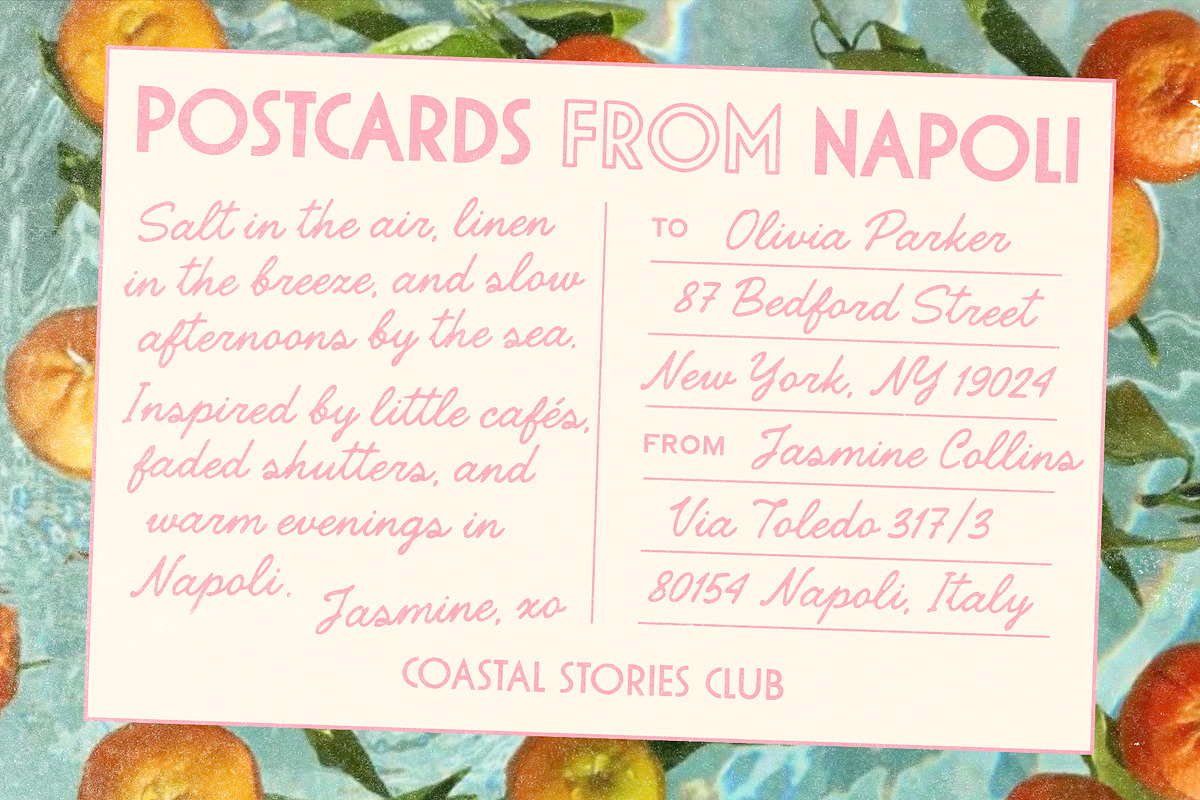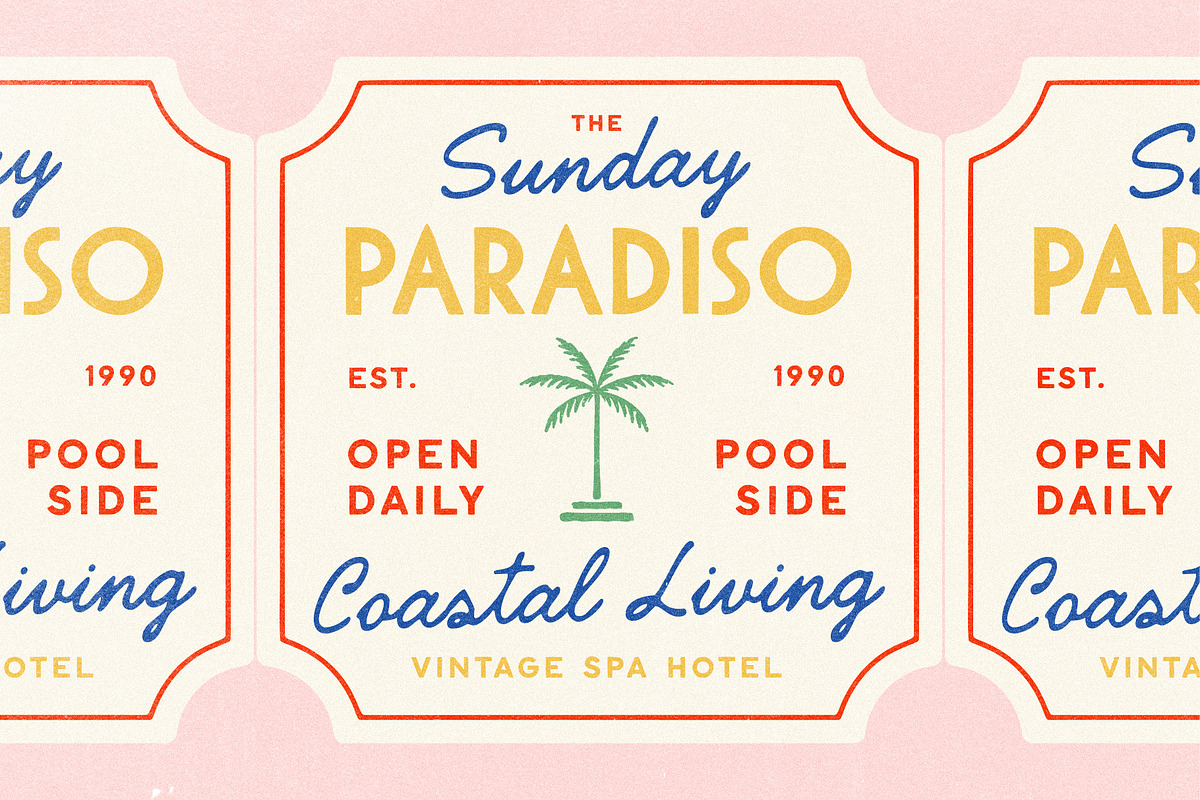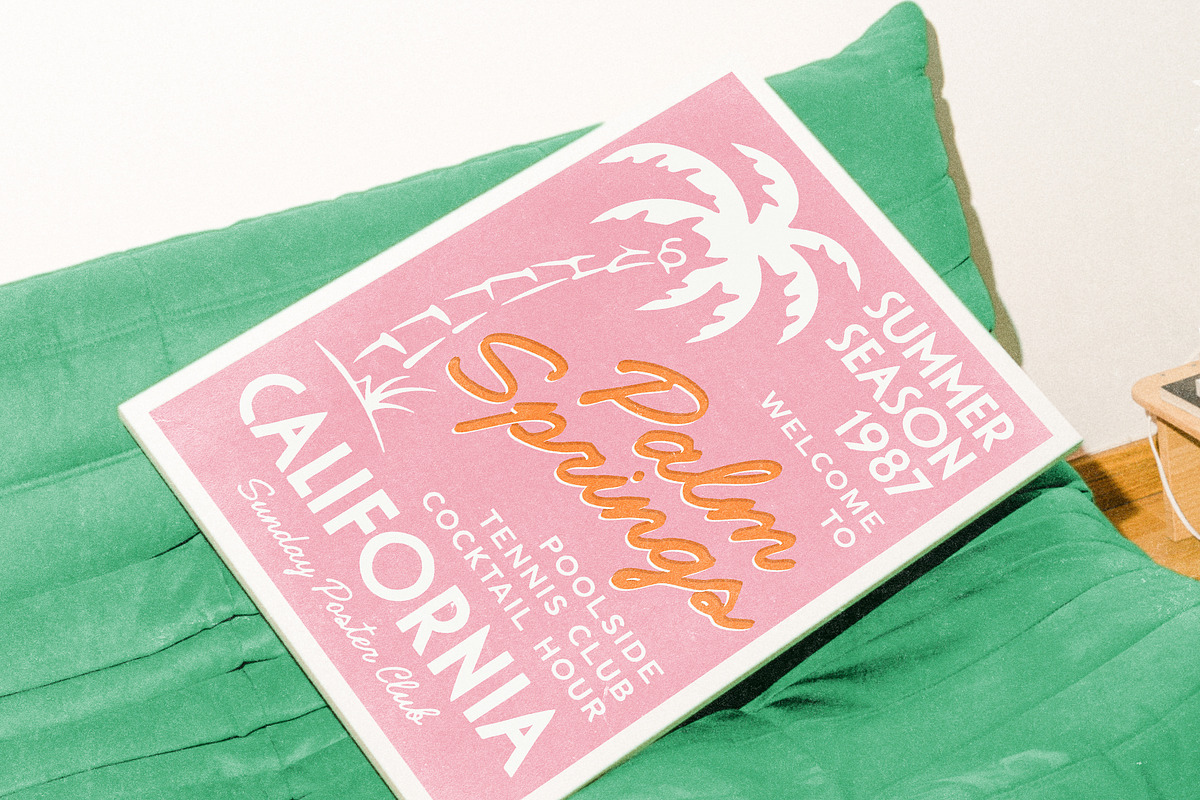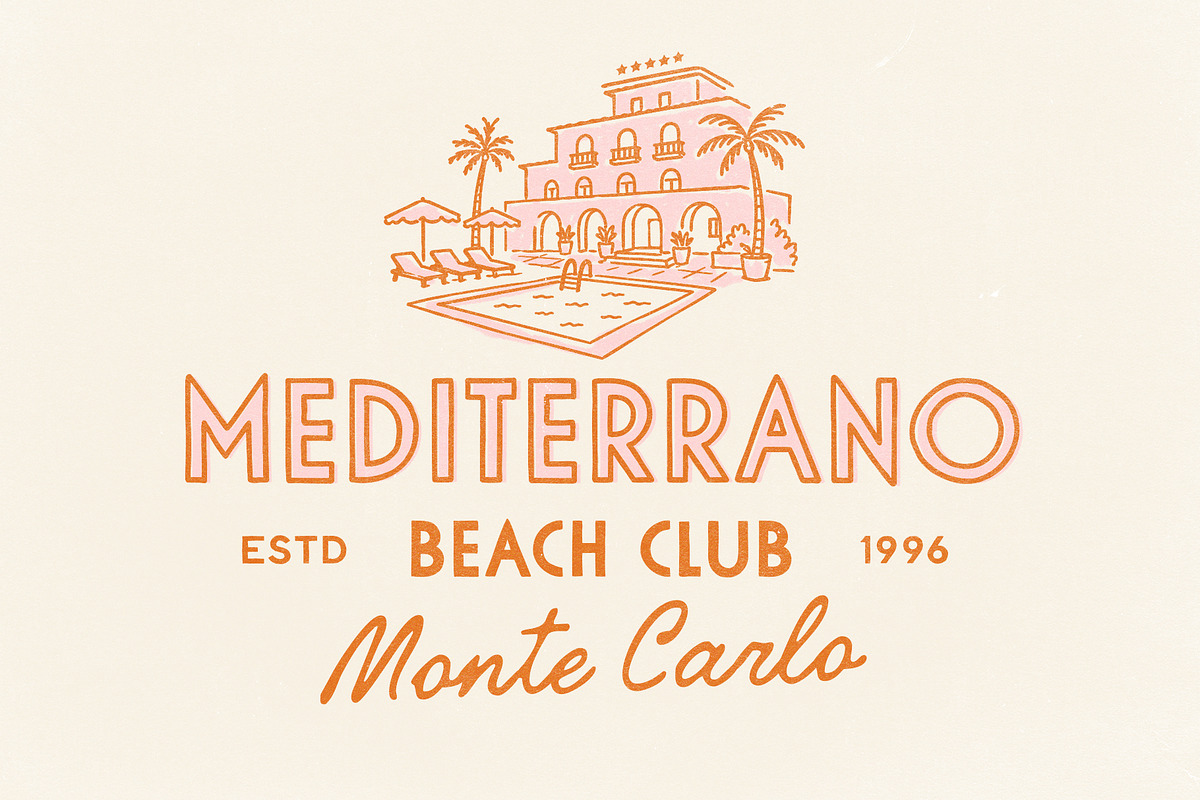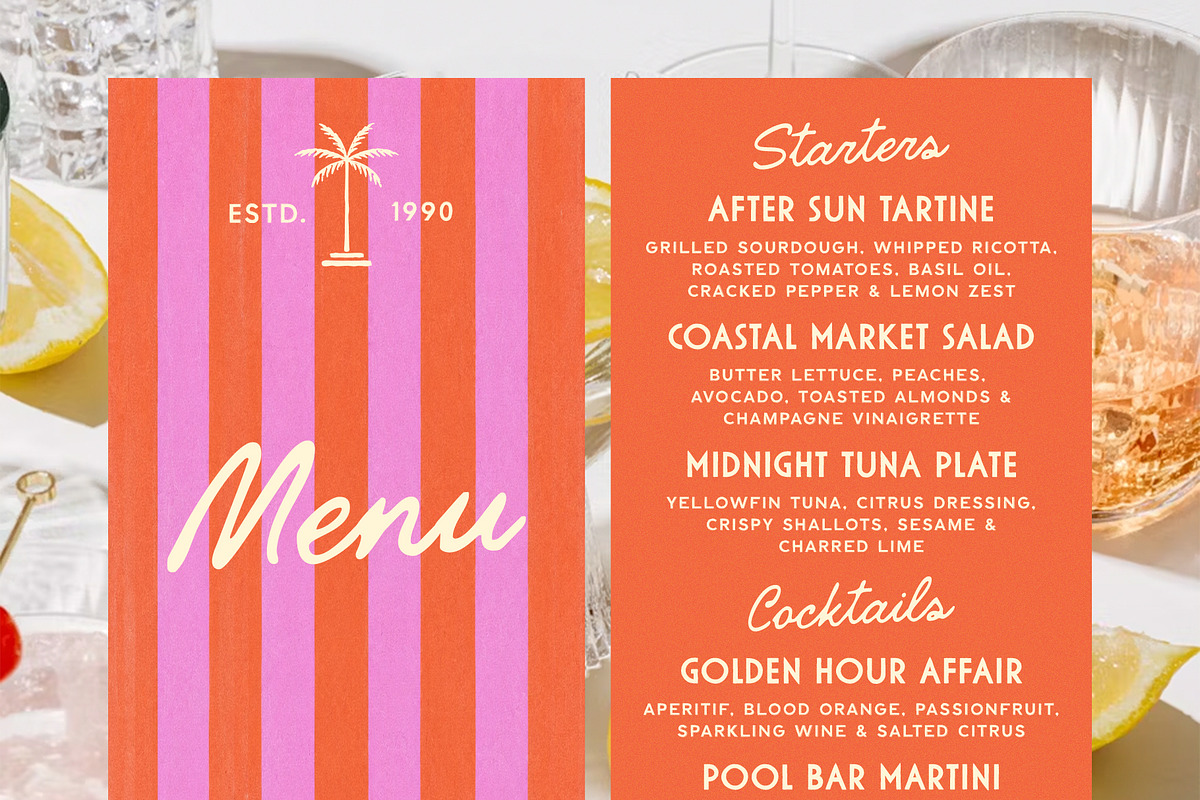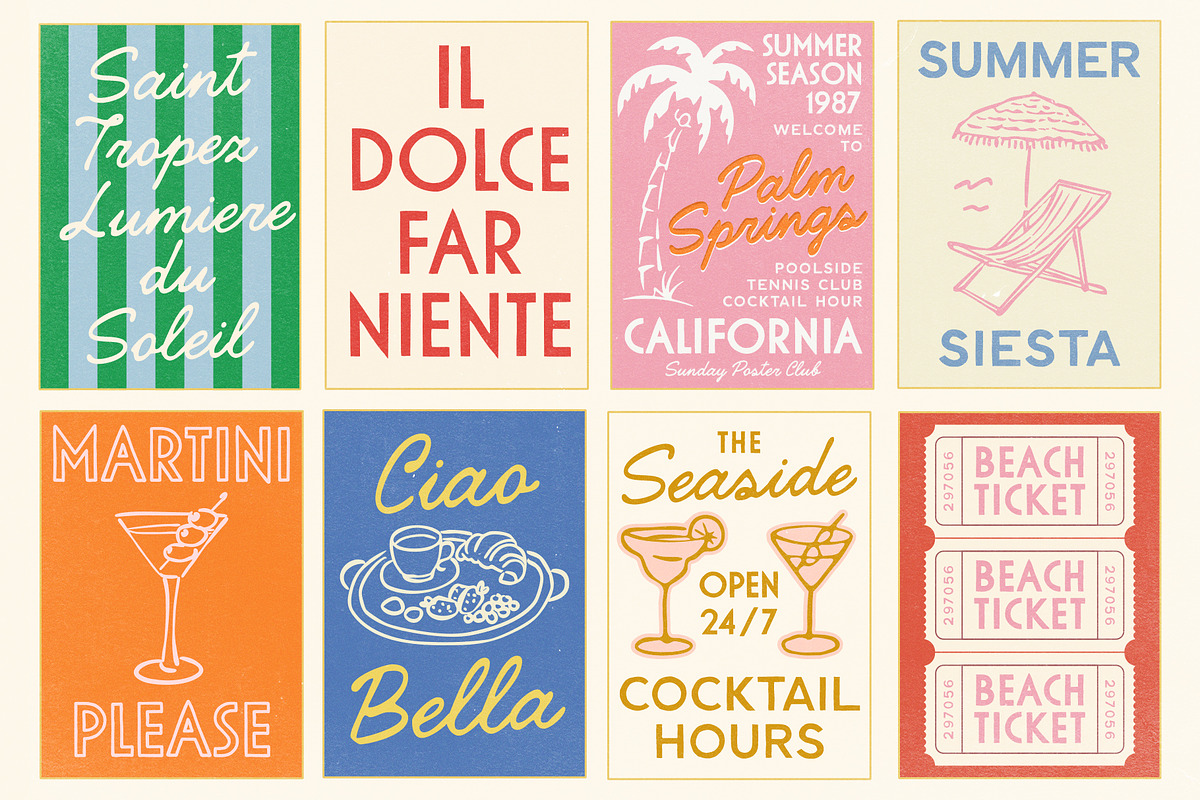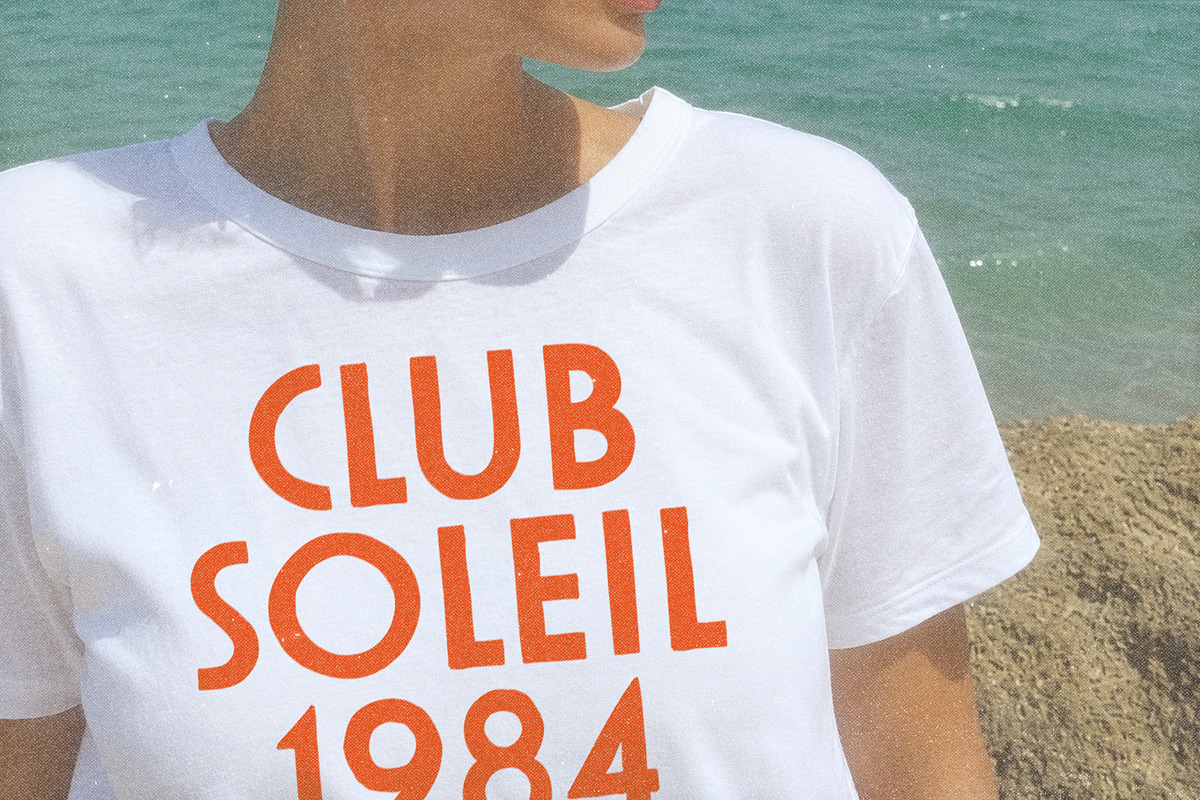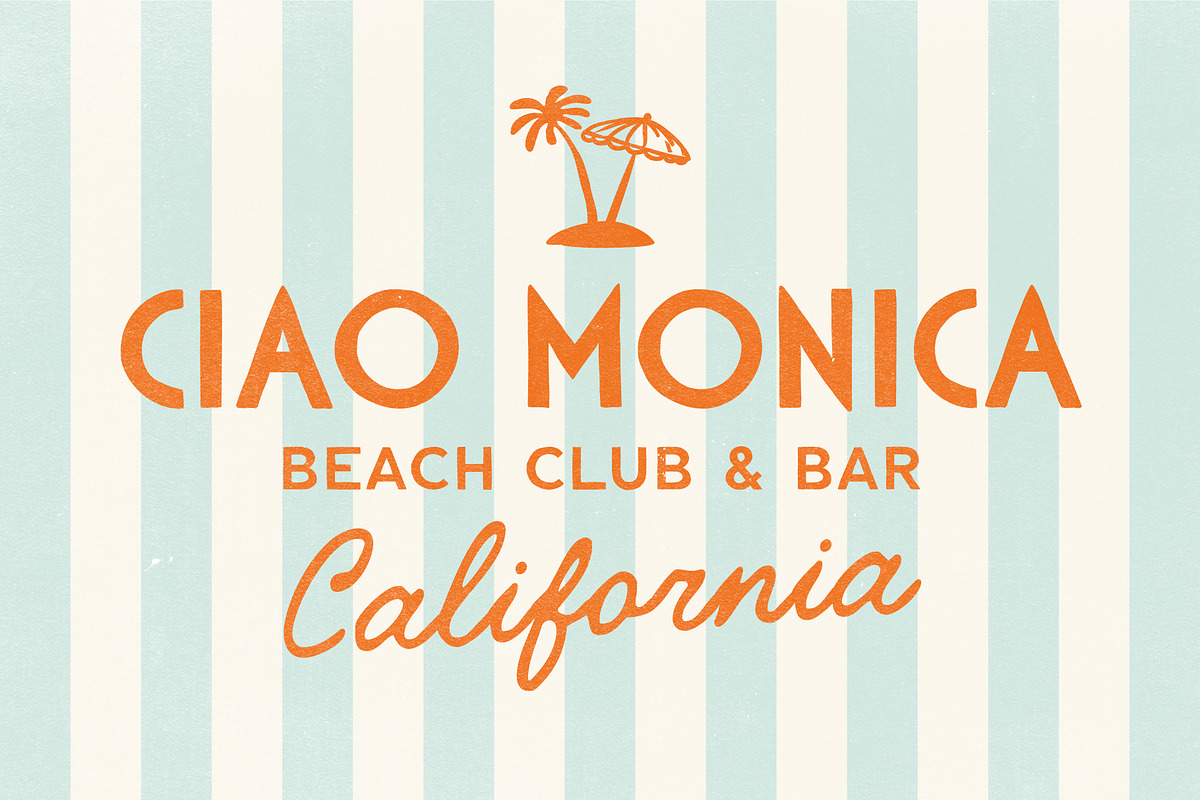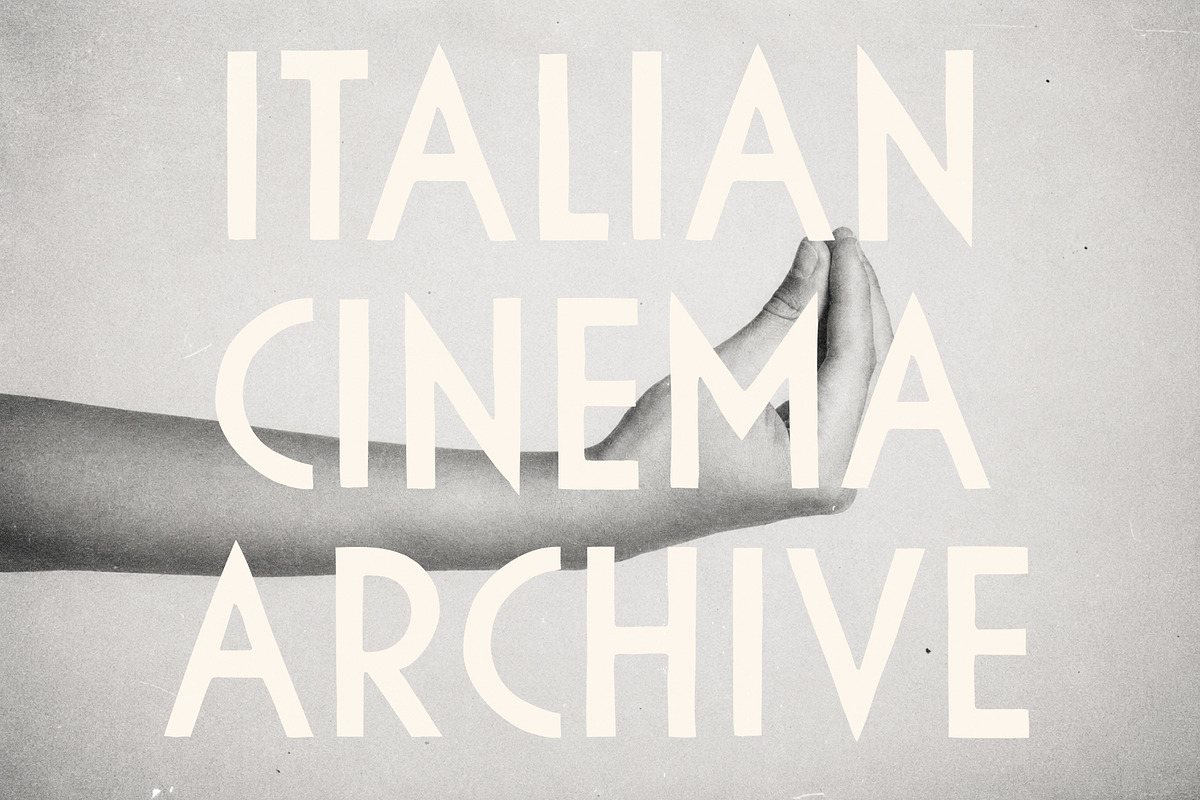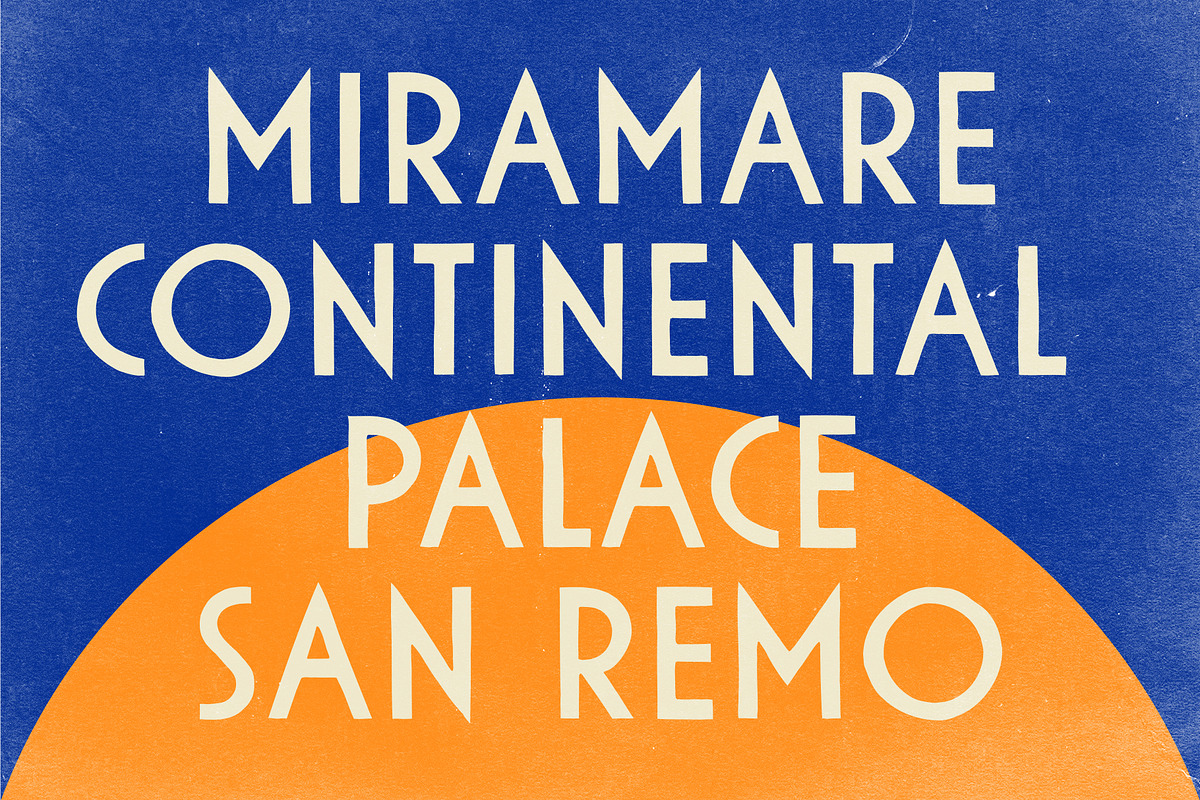
Hotel Paradiso Vintage Font Family
Hotel Paradiso started with a lot of looking at old things we couldn’t stop thinking about — vintage hotel signs, travel posters, tiny Italian matchboxes, old menus, packaging, postcards, hand-painted storefront lettering. The kind of design that wasn’t trying to be trendy, but somehow still feels cooler than most modern branding.
The font family includes 7 fonts with bold and script styles that work together naturally. Everything was drawn by hand, so the letters aren’t perfectly straight or overly clean. They move a little, feel a little uneven, and that’s what gives them personality. It feels vintage, but not costume-y. More like something that has existed for a long time and still works today.
Hotel Paradiso is made for branding, logos, posters, packaging, invitations, menus, apparel, or anything that needs character without feeling too serious or overdone. It has a classic foundation, but the handwritten details keep it relaxed and modern.
What we love about Hotel Paradiso is that it can make something feel expensive without becoming cold or overly refined. It has the presence of classic luxury branding, but still feels personal and alive — the kind of typography that doesn’t just sit on a design, but quietly becomes the whole atmosphere of it.